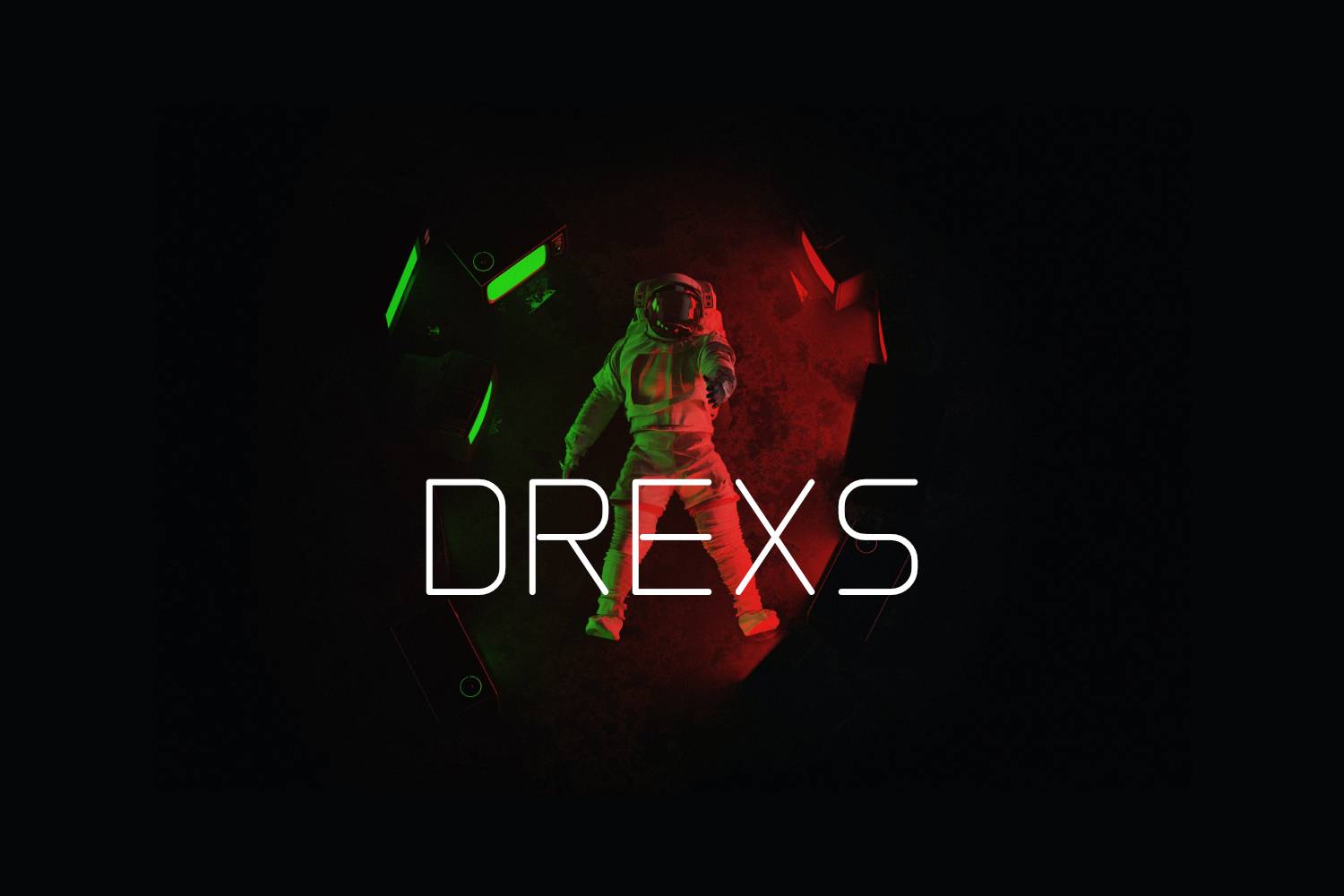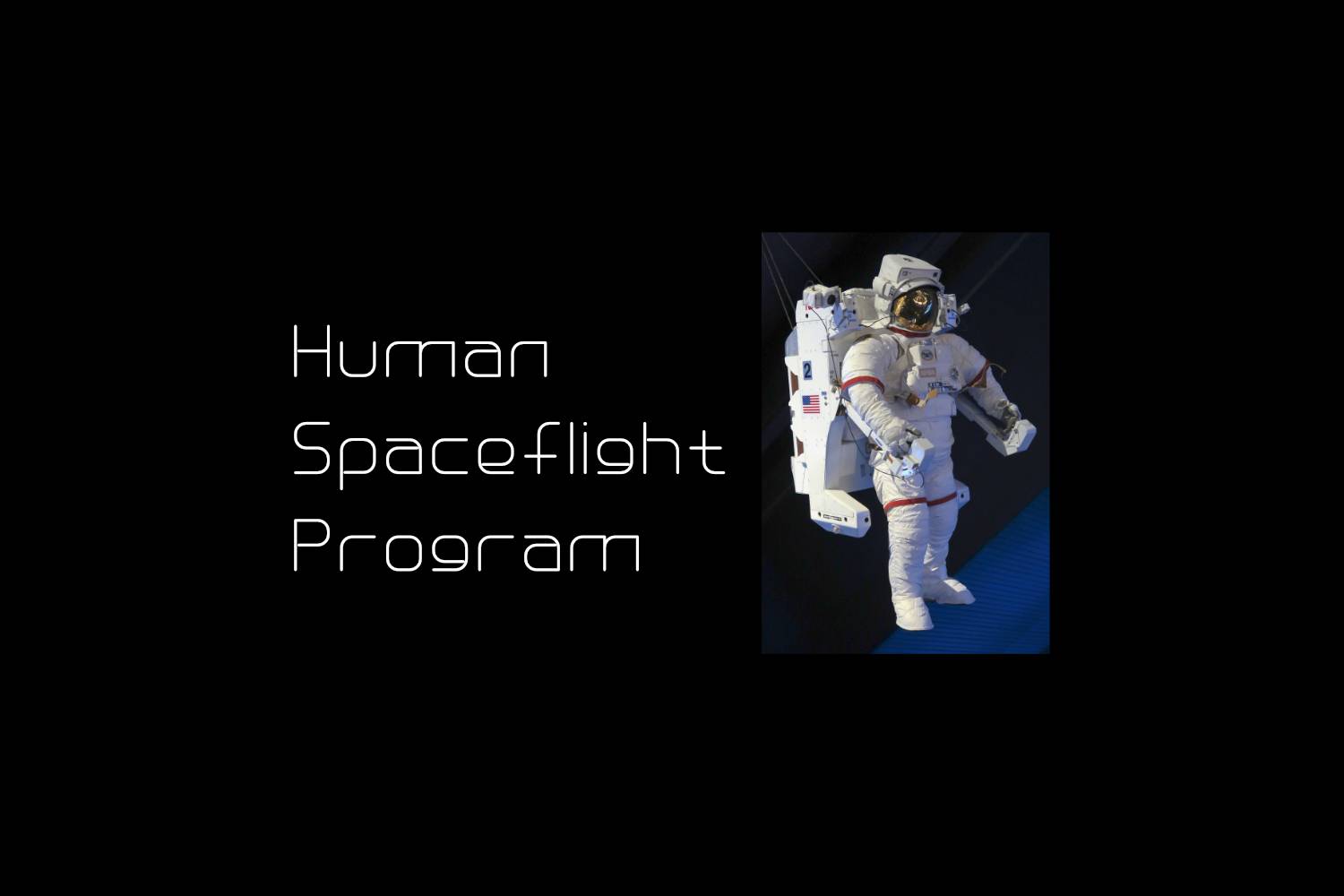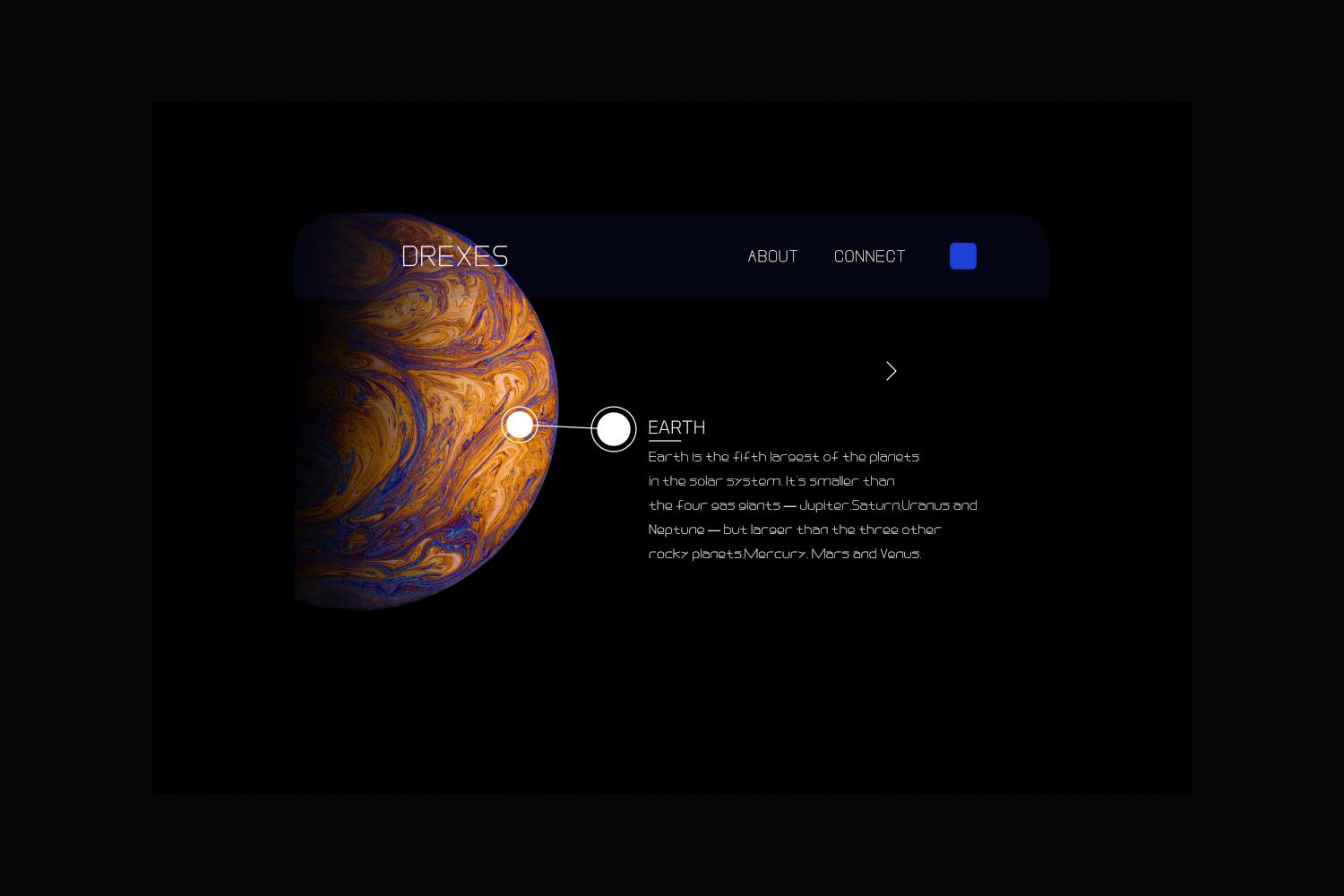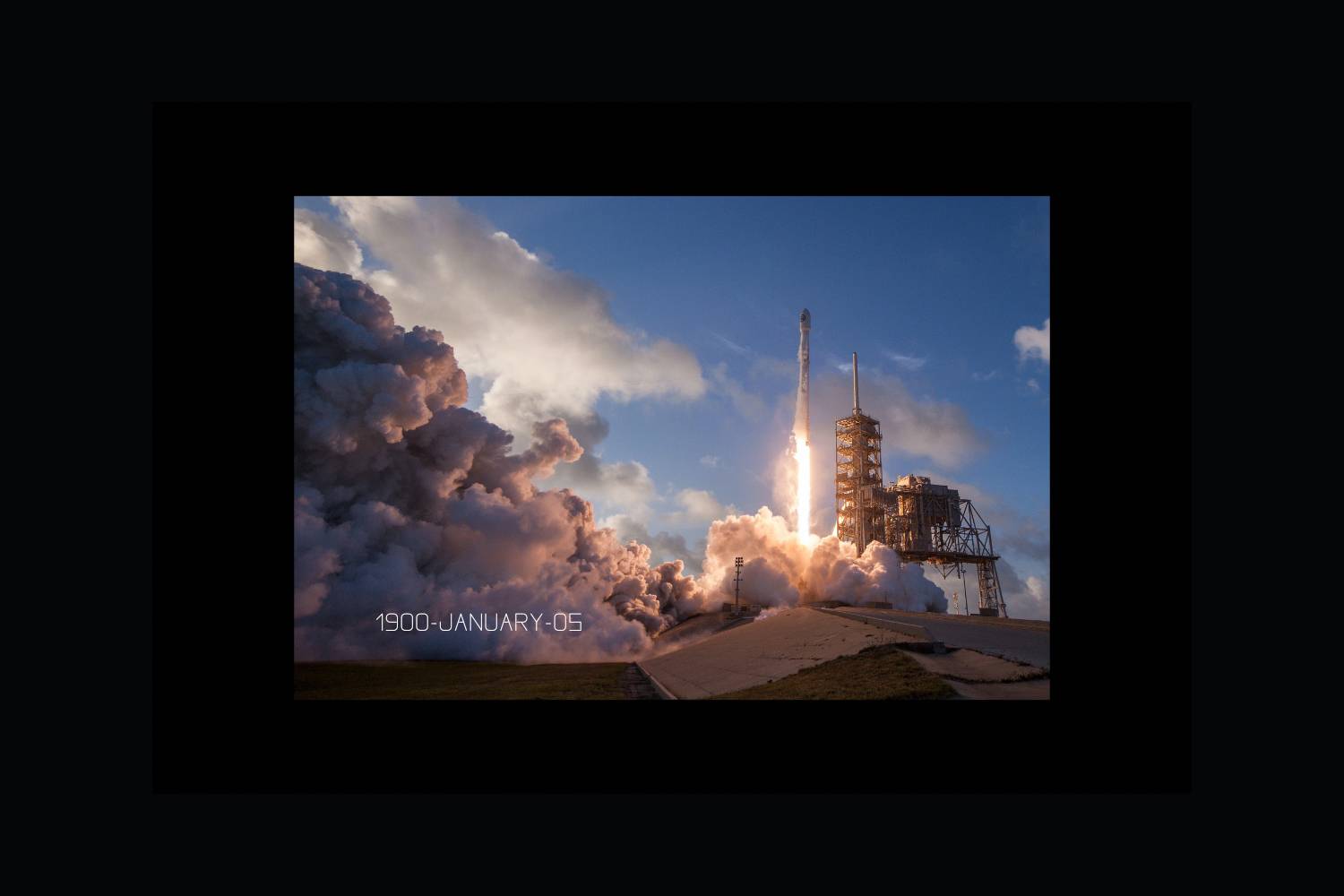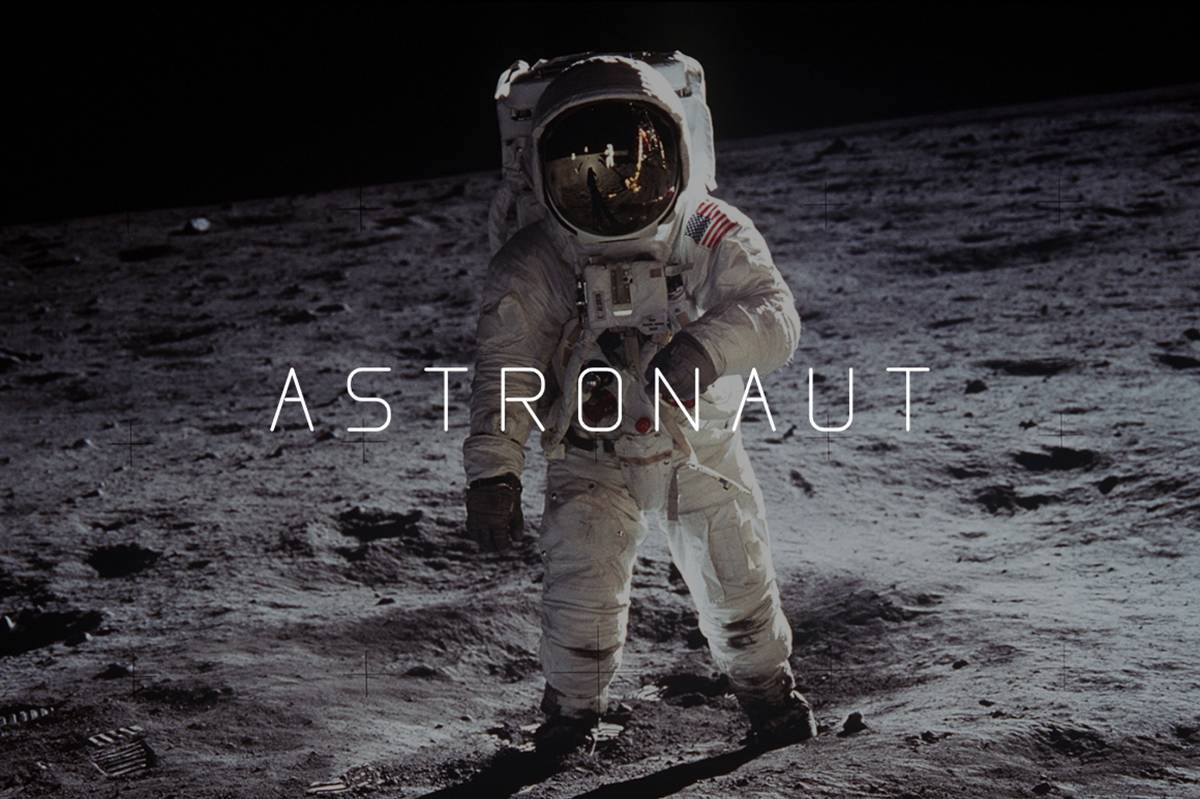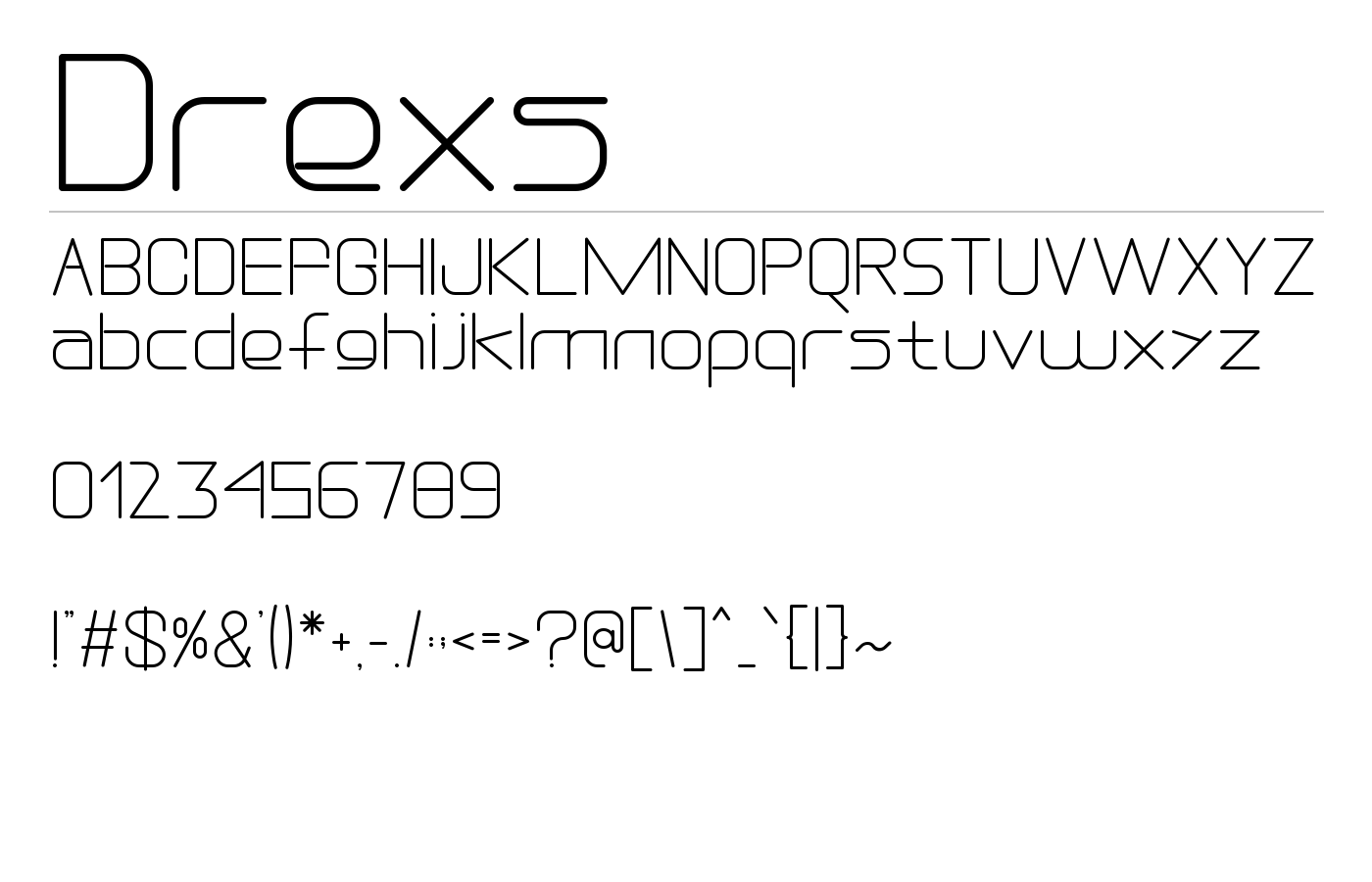
Drexs is a modern, ultra-light sans serif font with a sleek, geometric design and a consistent, narrow width that lends it a futuristic, tech-inspired feel. Its clean lines, open shapes, and distinctive letterforms make it ideal for contemporary branding, digital interfaces, and stylish editorial headlines where clarity and a cutting-edge aesthetic are key. This font works well in minimalist layouts, giving a sense of innovation and sophistication without sacrificing readability.
Drexs Font